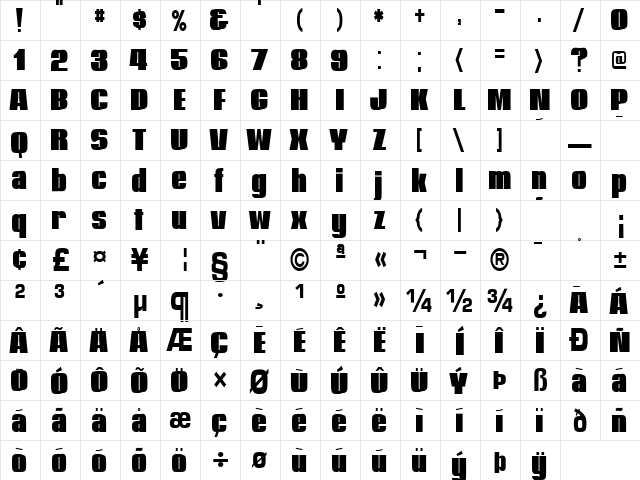
Graphic Regular
Design Context for Graphic Typeface
Graphic offers clean, dependable letterforms without strong stylistic allegiance, making it a practical choice for designers who need flexibility.